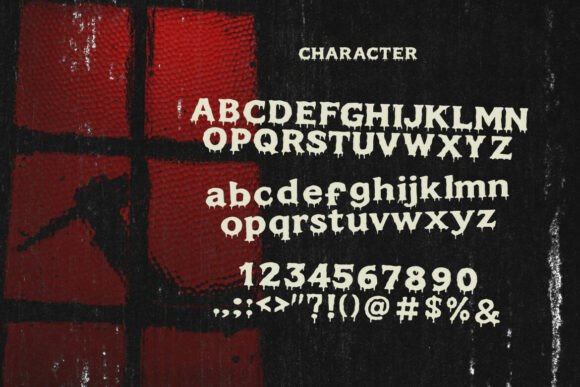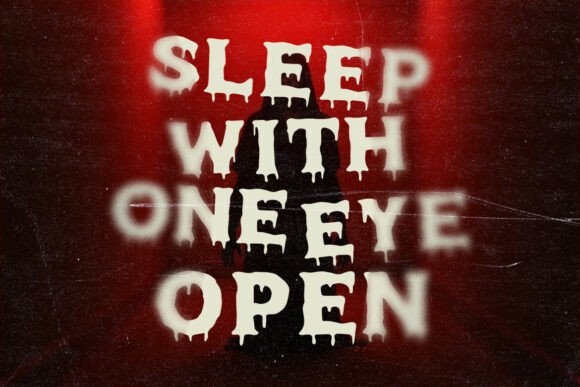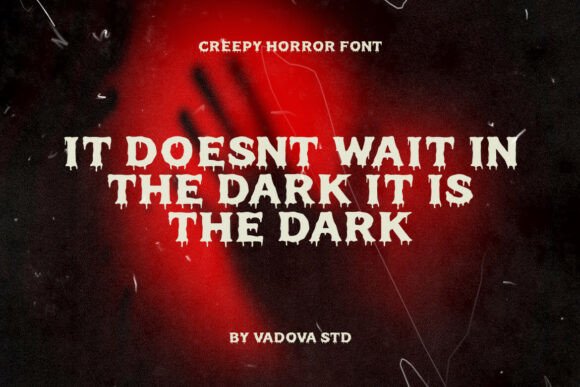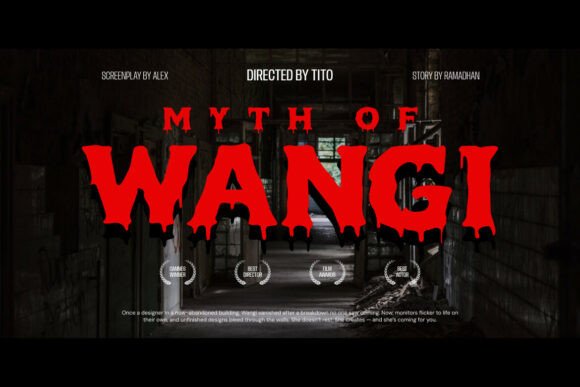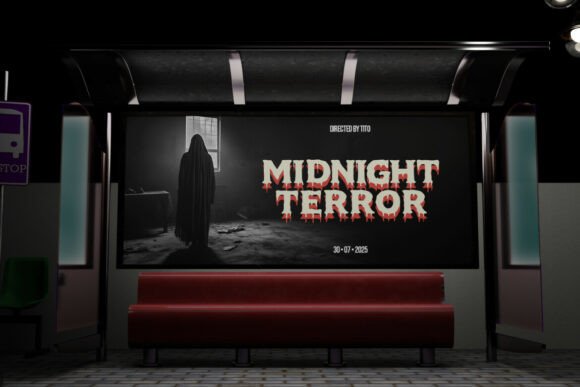
Introduction to Midnight Ooze Font
Midnight Ooze Creepy Horror Font is a creepy horror display font that oozes with dread, perfect for eerie titles and fearsome branding.
Its sharp, jagged serifs and signature dripping effect evoke a chilling, blood-curdling atmosphere ideal for Halloween posters, slasher movie titles, horror book covers, haunted attraction branding, and dark video game intros This font combines vintage horror aesthetics with a modern typographic twist, making it both readable and menacing.
Key Features of Midnight Ooze Font
Why Choose Midnight Ooze Font?